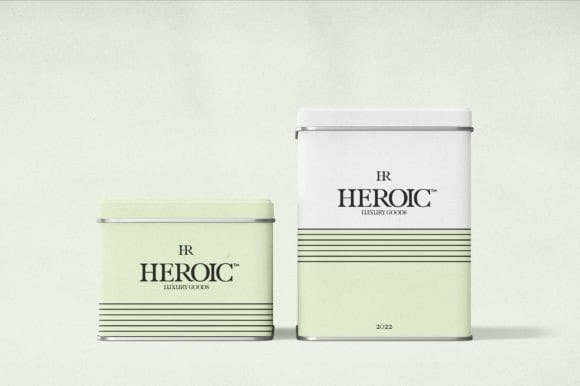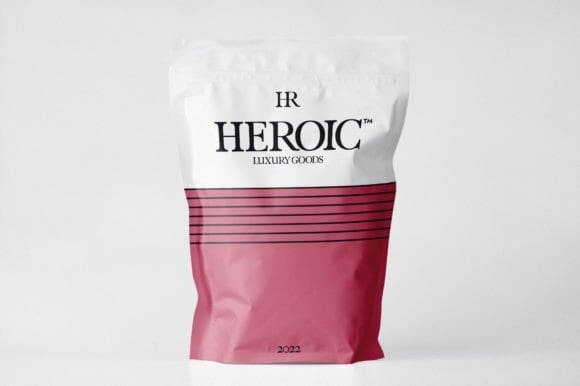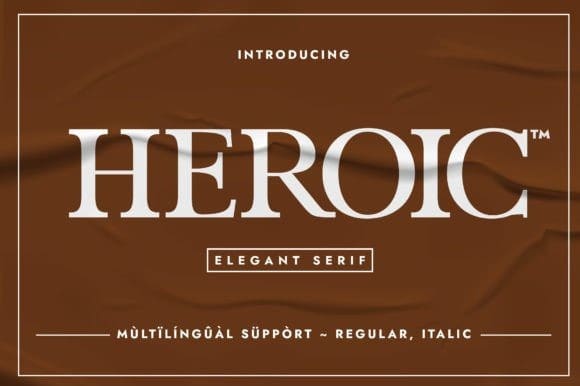
Heroic Font
Heroic Font is an essential, elegant and minimalistic serif typeface. Its unique glyphs construction makes it a perfect choice for packaging design, cosmetics design, poster designs, book covers, fashion design, presentations, etc. Use it confidently in your creation, and you will see how fastly becomes one of your fonts in your library.